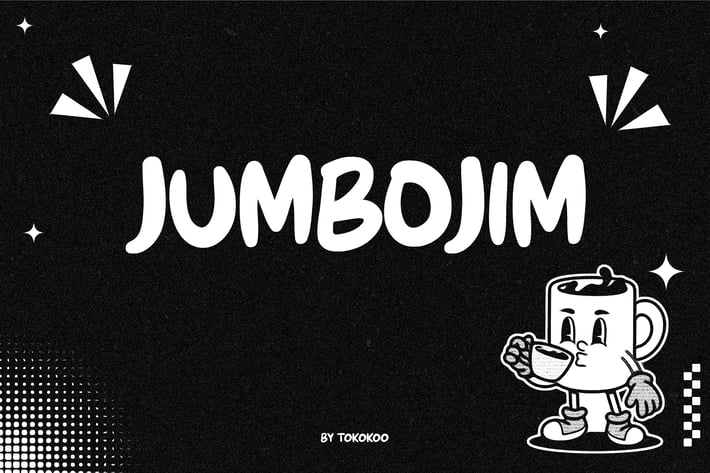
Retro Cartoon Font - Jumbojim
Jumbojim
Jumbojim is a retro comic-inspired display typeface with a chunky, bouncy baseline and playful rhythm that injects personality, fun, and vintage charm into every character. Designed with bold rounded terminals, soft edges, and strong visual contrast, it’s perfect for youth-focused graphics, event posters, and nostalgic branding.
With its vintage cartoon attitude and expressive curves, Jumbojim gives your designs a delightfully memorable voice that’s both eye-catching and friendly. Ideal for creators who want to capture the feel of classic comics, childhood fun, and bold statements.
Whether you're designing for a summer camp flyer, kids book cover, birthday invitation, or an ice cream label, Jumbojim offers a wholesome throwback tone that stirs emotion and evokes joyful storytelling. Its retro flair and bubbly forms make it perfect for branding, poster design, event promos, product packaging, and any layout needing positive energy and standout titles.
Its charm appeals to illustrators, educators, and nostalgic creatives who want to blend fun with retro flair in every letter.
Key Features :
Nostalgic & Friendly Personality
- Rounded letterforms with bold proportions and high legibility
- Designed with a bouncy baseline and soft curves for visual rhythm
- A perfect mix of retro cartoon and modern display
Optimized for Real-World Play
- Ideal for posters, event flyers, signage, calendars, merch, and kids activities
- Conveys energy, fun, and whimsy in bold headers and short text blocks
- Stays visually balanced in both print and digital applications
Bring a blast of retro joy into your next creative project with Jumbojim—a font built to turn smiles into sales and curiosity into clicks. It’s your go-to for any project that needs friendly energy and nostalgic impact.